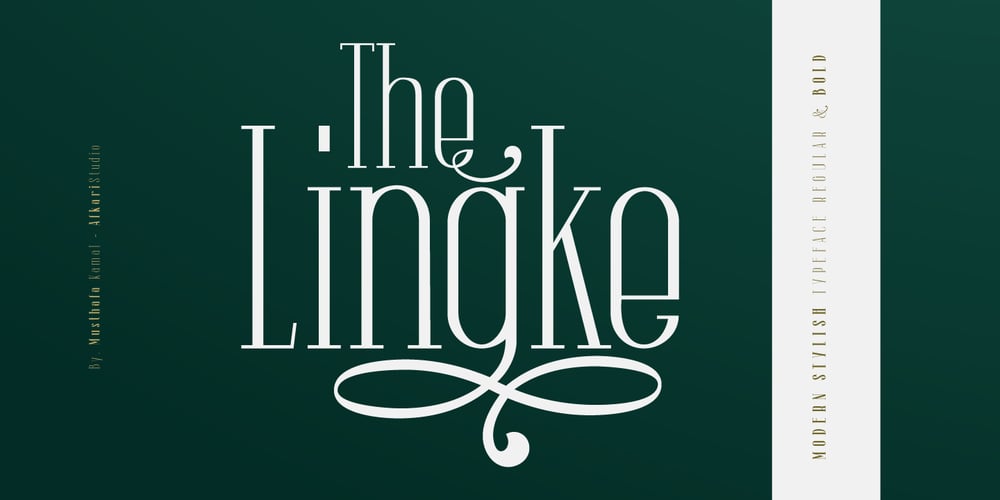
The Lingke
The Lingke font
The Lingke Font Family was designed by Musthafa Kamal Emje and published by Afkari Studio. The Lingke contains 2 styles and family package options. The Lingke – Stylish Modern Serif FontThe Lingke is a Stylish Modern Serif Font created with many stylish alternates and ligatures. The Lingke Stylish Modern Serif Font Perfect for a multi-purpose serif font that will fit perfectly into any project such as logo, headline, magazine cover, poster, branding, posters, monogram logo, flyers, outdoor advertising, fashion labels, stationery, business cards, and much more.You can also use alternates and ligatures of this stylish modern font for variety and this will add more charm to your project and emphasize your personality.Features;- Uppercase, Lowercase, Number, and Punctuation- Special alternates and ligatures- Special Stylish Set for Uppercase & Lowercase- Works on PC & Mac- Simple installations- Accessible in Adobe Illustrator, Adobe Photoshop, Adobe InDesign, even work on Microsoft Word- Fully accessible without additional design software.- Mültîlíñgúãl Sùppört for; ä ö ü Ä Ö Ü ß ¿ ¡Hope you enjoy our font and this font is useful for your projects!